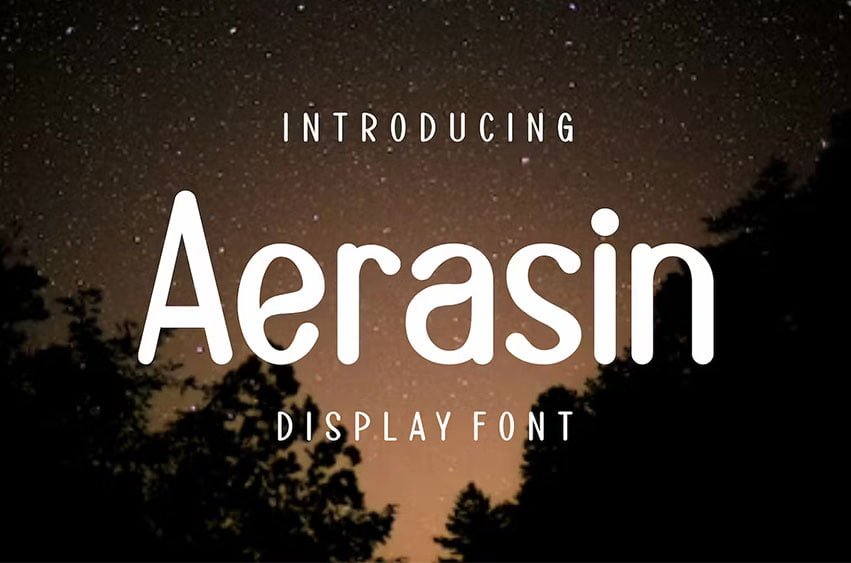
Aerasin Font Perfectly suited on print/screen. it’s perfect for Branding, name card, poster, logo, magazines, covers, banners, t-shirts and headers, or even large-scale artwork.